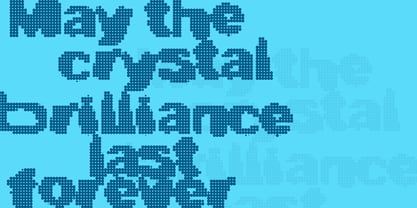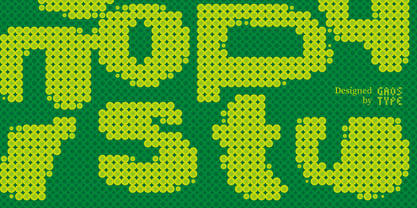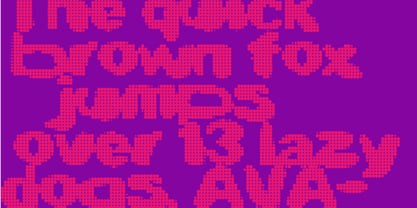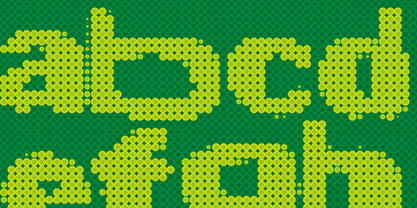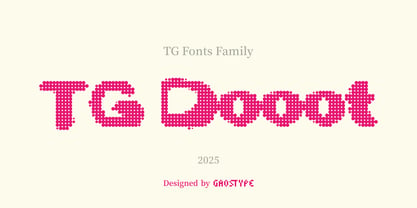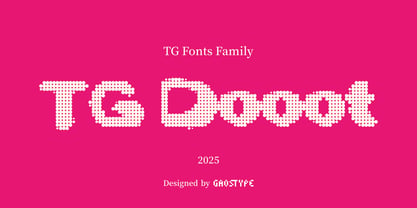
TG Dooot
by Weishan Gao
The TG Dooot Font Family was designed by Weishan Gao and published by Weishan Gao. TG Dooot contains 1 styles. More about this family
Headline: Pixel-Poetic: Bold Dot-Based Display FontDescription:A striking display font built entirely from uniform magenta dots, blending retro pixel aesthetics with modern vibrancy. Its granular texture and high-contrast color scheme deliver immediate visual impact, perfect for experimental posters, poetry layouts, and eye-catching headlines. The dot matrix structure creates a unique "broken" texture that pairs beautifully with lyrical text, making it a standout choice for designers seeking both readability and artistic edge.